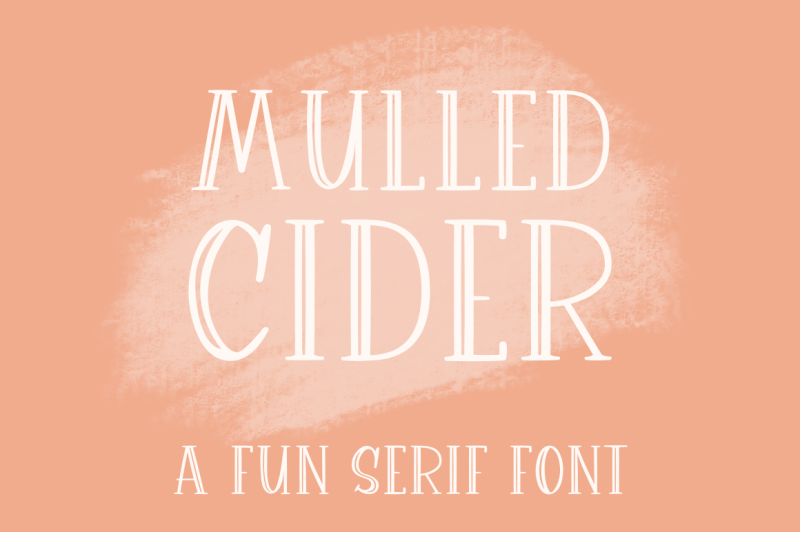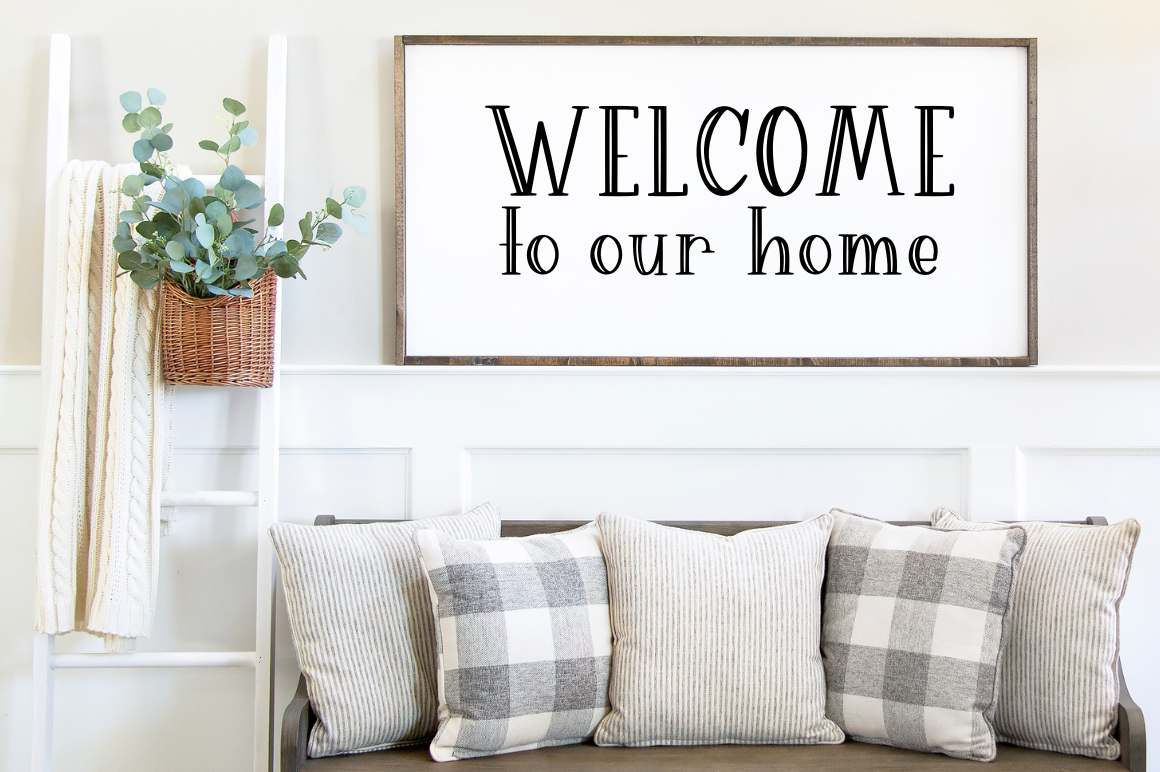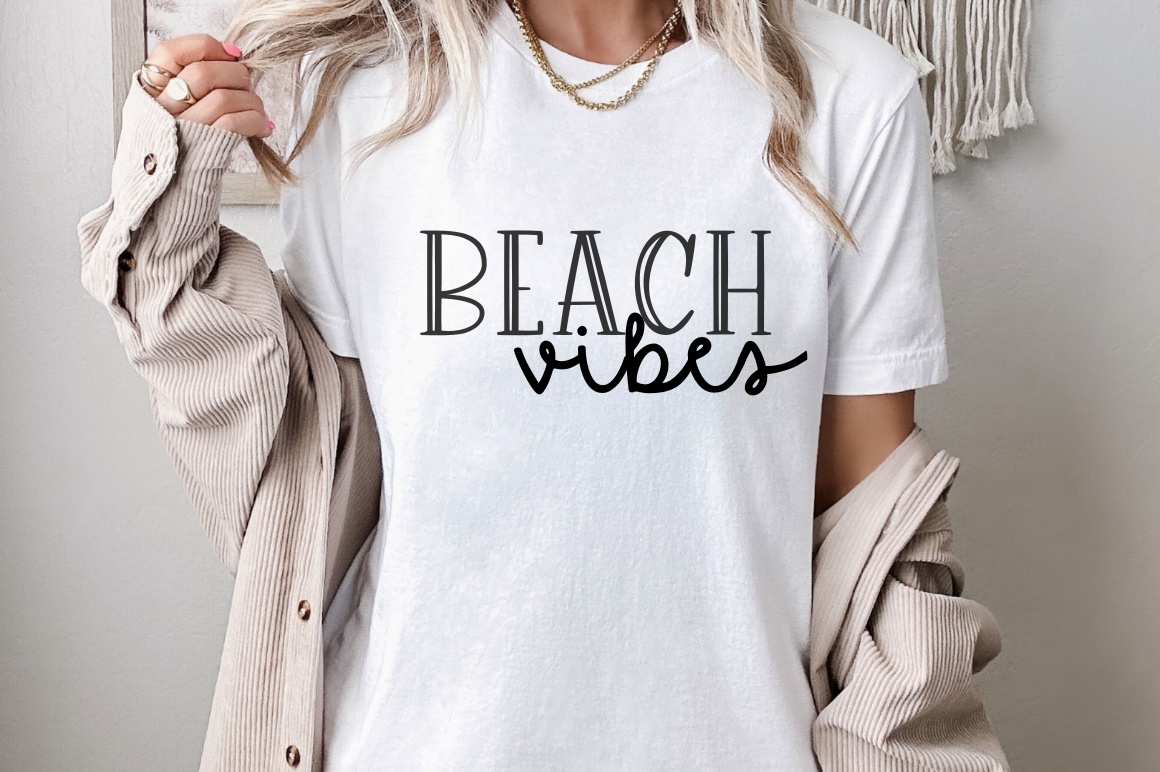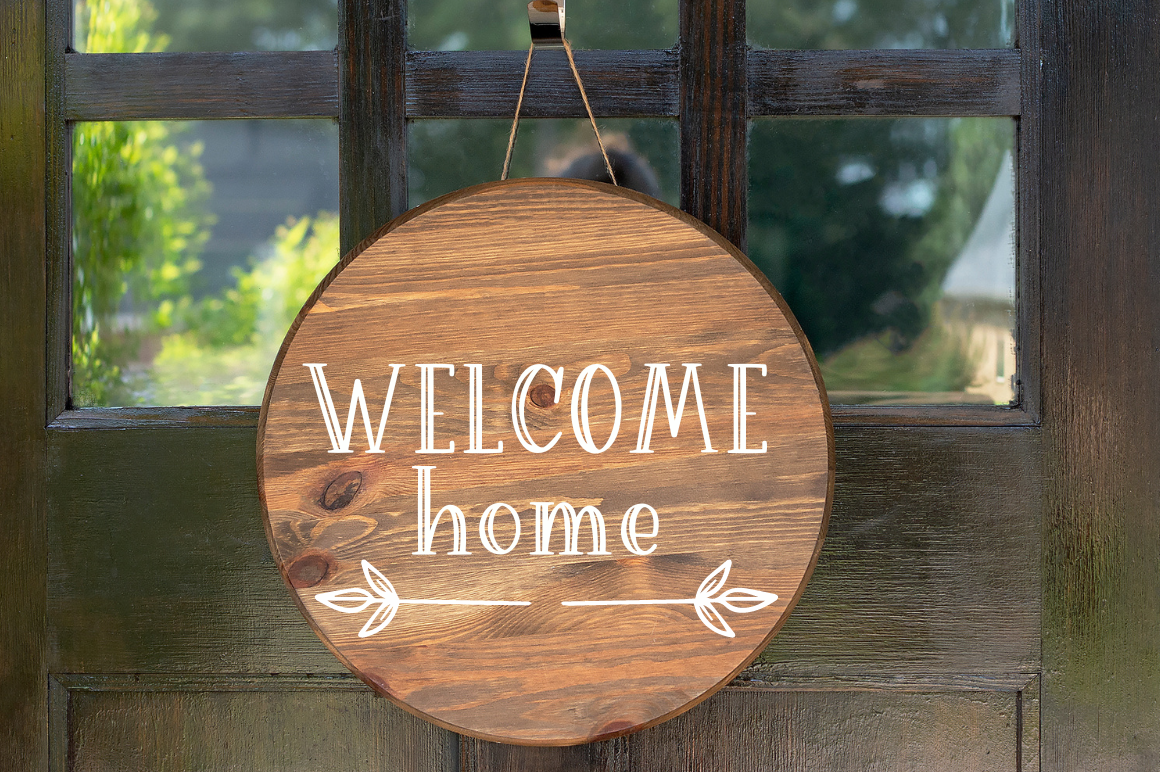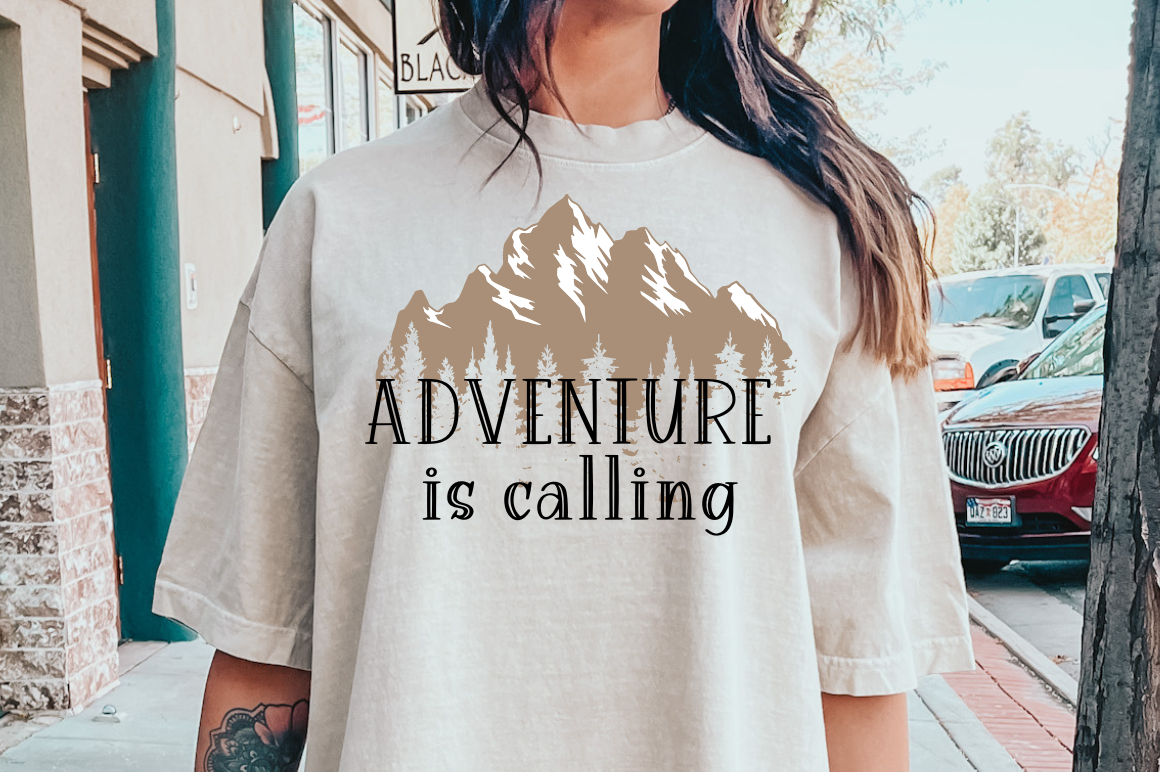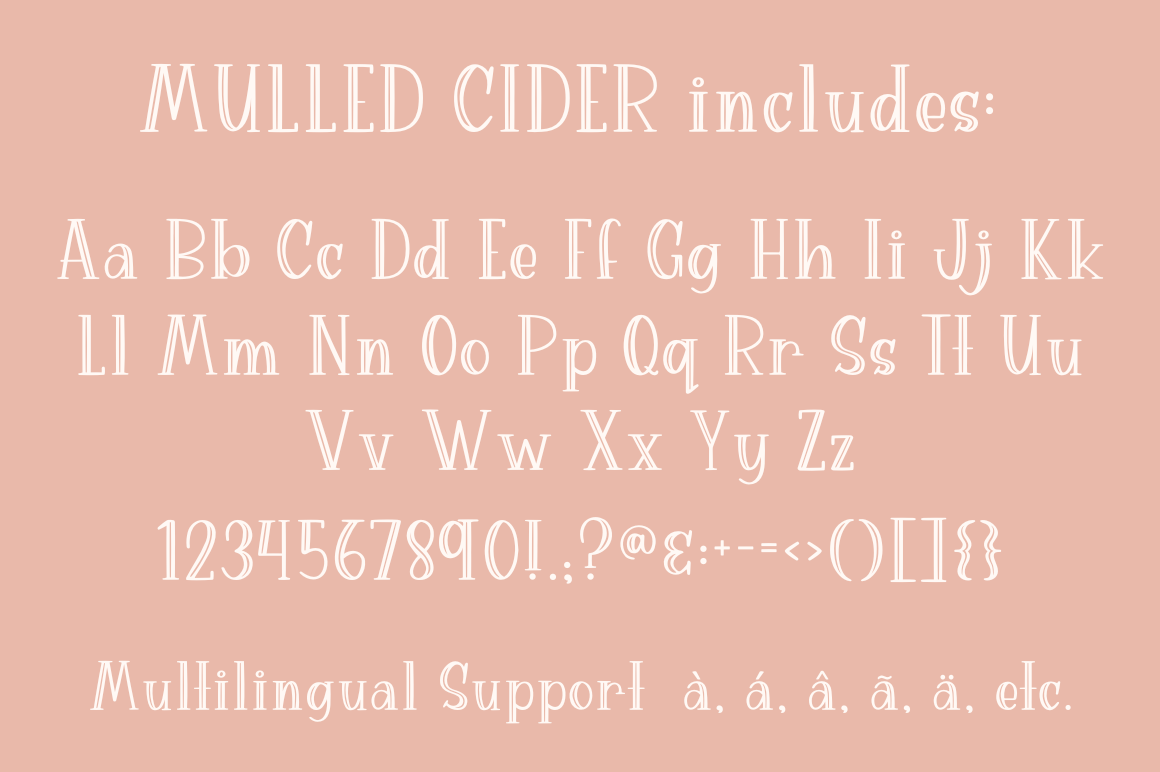
Mulled Cider, Handwritten Font
Introducing Mulled Cider, handwritten font for Cricut and more - a charming and cute addition to your creative projects! Our handwriting font is compatible with Cricut SVGs, Goodnotes, Procreate, and many other programs. With its fun lined serif style, it adds a touch of whimsy and personality to any project. Whether you're crafting cards, scrapbooking, or designing SVG files, this font will bring your creations to life. Get ready to impress with our amazing Cricut font collection and unlock endless possibilities for your artistic endeavors!   What's Included: ------------------------------------------------------------------------------------ One Zip File containing: Mulled Cider OTF Mulled Cider TTF Mulled Cider WOFF ------------------------------------------------------------------------------------